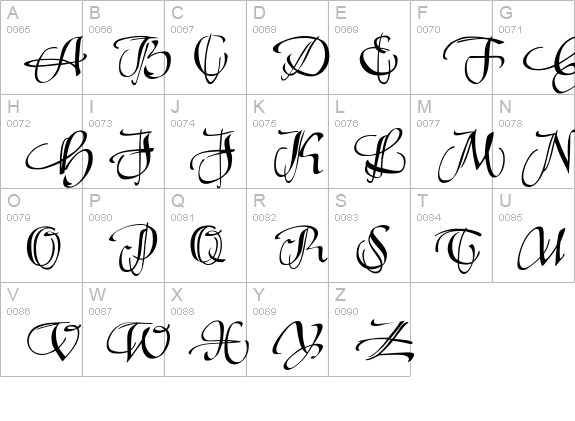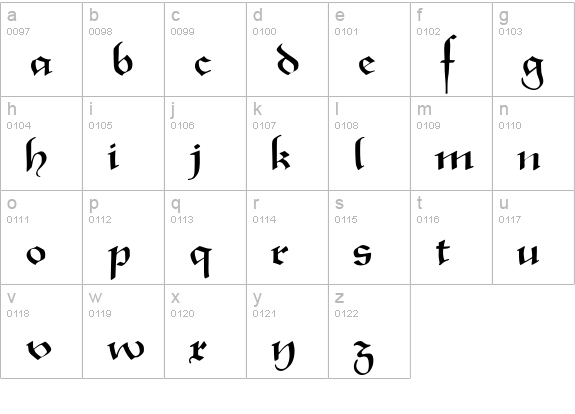
XmasTerpieceSwashes Font Details
Introducing XmasTerpieceSwashes, a whimsical and enchanting font that captures the joy and magic of the holiday season. This delightful typeface is perfect for adding a touch of cheer and elegance to all your Christmas-themed projects. With its delicate swashes and intricate details, XmasTerpieceSwashes brings a sense of wonder and festivity to any design. Whether you're creating holiday cards, invitations, or festive decorations, this font will instantly make your designs stand out. Its graceful curves and playful flourishes add a touch of sophistication, while its charming character sets evoke a sense of nostalgia and warmth. But what makes XmasTerpieceSwashes truly special is that it's completely free. That's right, you can download this incredible font for absolutely no cost at FontsMarket.com. We believe that everyone should have access to high-quality fonts to enhance their creative projects, and XmasTerpieceSwashes is our gift to you this holiday season. So why wait? Spread the holiday cheer and elevate your designs with XmasTerpieceSwashes. Download it today at FontsMarket.com and let your creativity shine this Christmas.